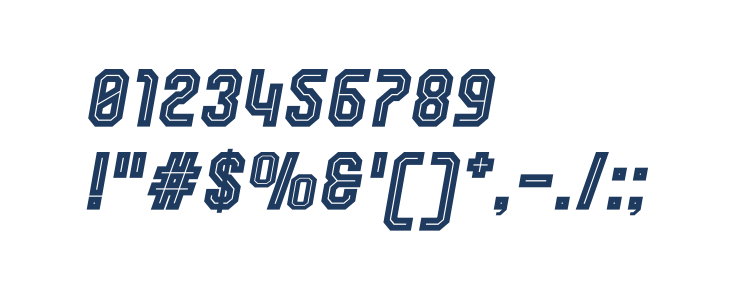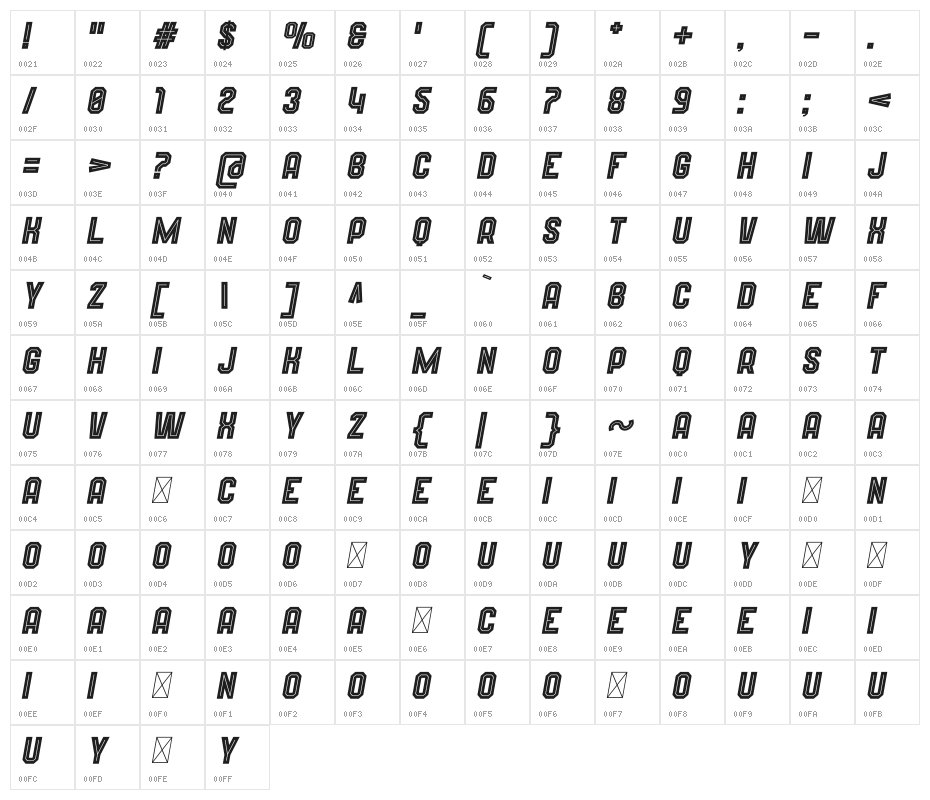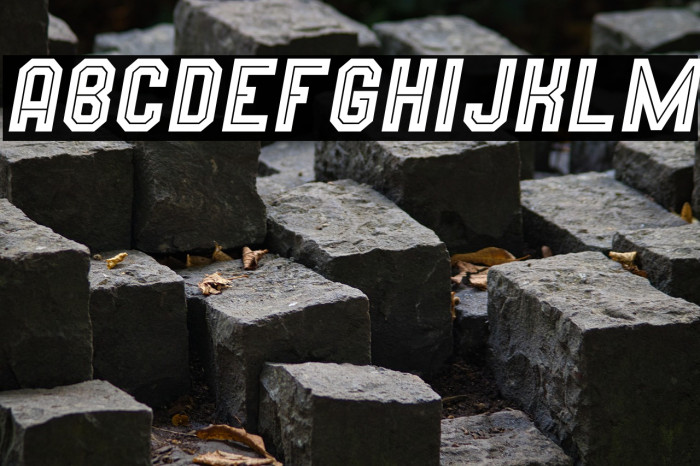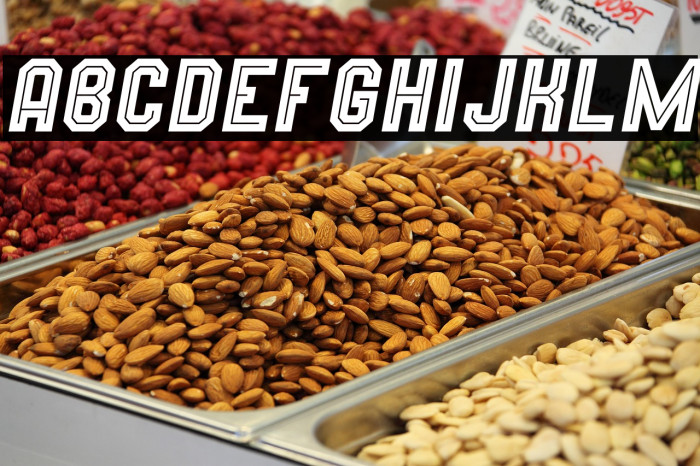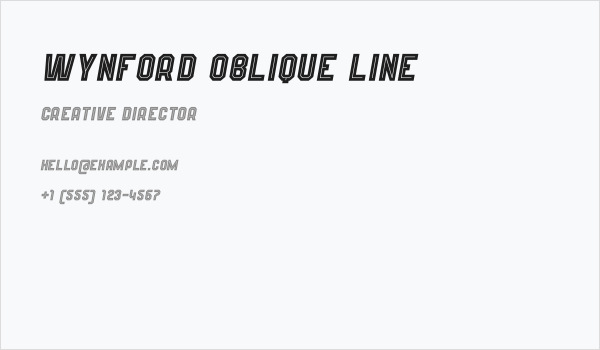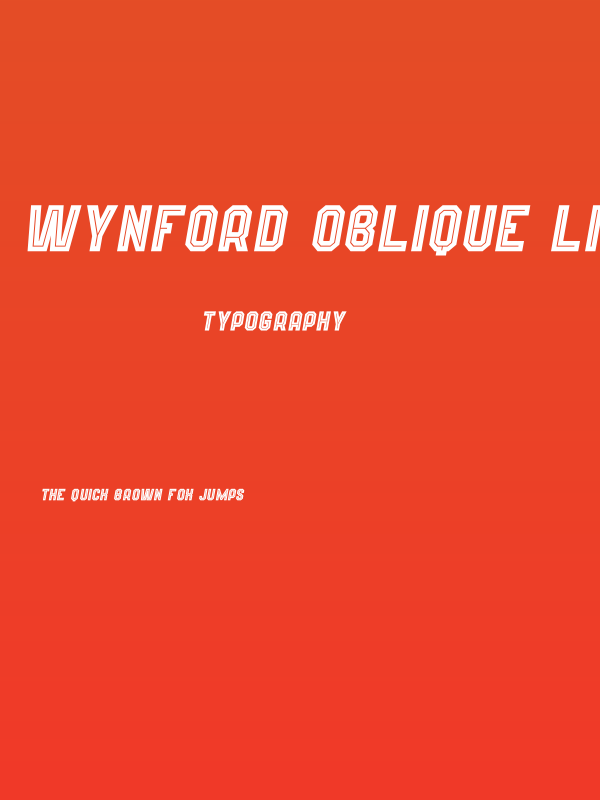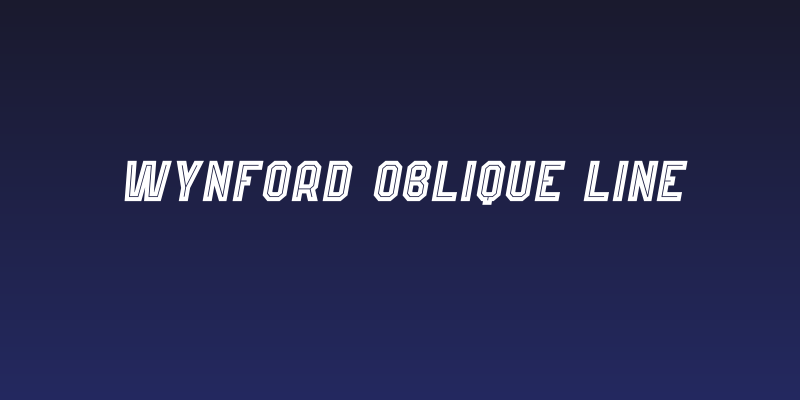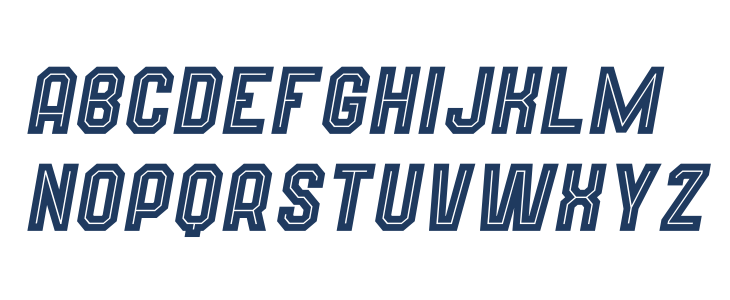
Wynford Oblique Line Font
Wynford Oblique Line Description
This font features a bold, geometric design with a distinct oblique style, giving it a dynamic and modern appearance. The characters are outlined, creating a layered effect that adds depth and dimension. The uppercase and lowercase letters maintain a consistent width, contributing to a uniform look. The numerals and special characters follow the same stylistic approach, ensuring cohesion across all elements. The font's angular lines and sharp edges make it highly suitable for attention-grabbing headlines or branding projects that require a contemporary and edgy aesthetic.
| Proposed Projects | Ideal for branding, sports team logos, posters, and any project requiring a bold, modern touch. |